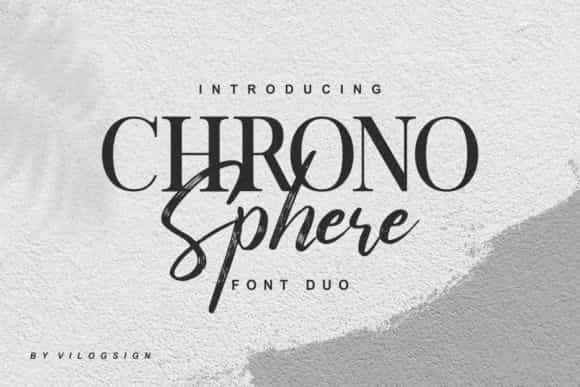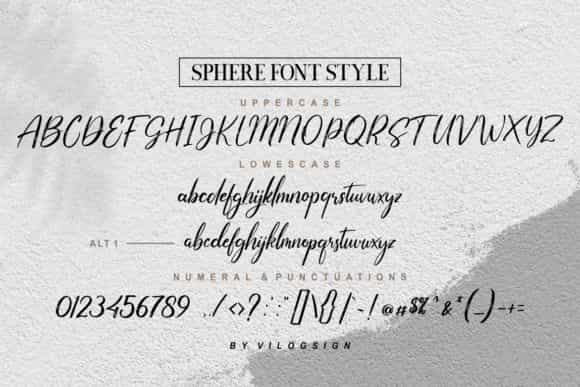
Chrono Sphere is the perfect Script & Serif font pair! This is a modern and, at the same time, exquisite font combination that will add a special touch of sophistication to your design. This font is most appropriate for creating wedding invitations, cards and any other feminine related branding. It is created by Vilogsign and made available for public use. Chrono Sphere Script & Serif Font is a modern calligraphy typeface that combines script and serif fonts.